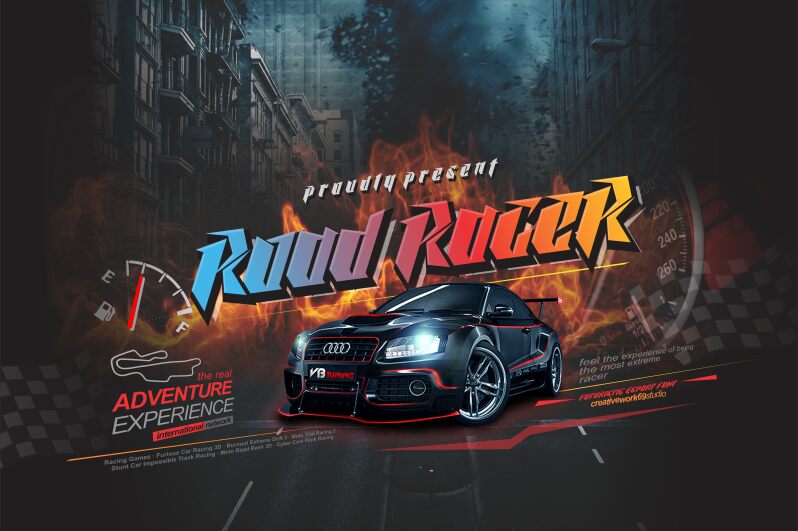
Road Racer, a bold gothic typeface from Creativework69 Studio, exudes the essence of acceleration and agility. Modern in style, it embodies the spirit of esport with a sporty character that's perfectly aligned with high-energy creative projects.
The dynamic flair of Road Racer is particularly well-suited for automotive design work, sports branding, and any product that wishes to convey movement and excitement. Its assertive weight and contemporary gothic aesthetic give it a competitive edge that can make designs stand out, whether used in logos, promotional materials, or event graphics. Road Racer is not just a font; it's a statement piece for designs that dare to move fast and break boundaries.